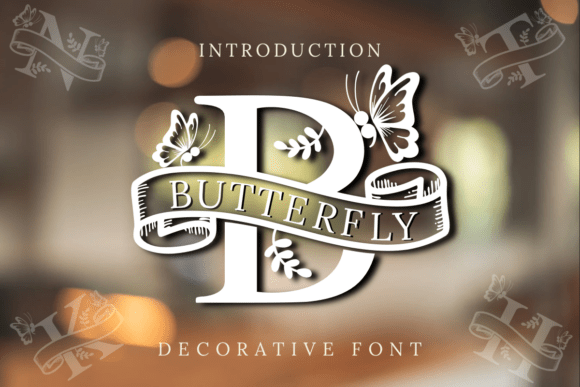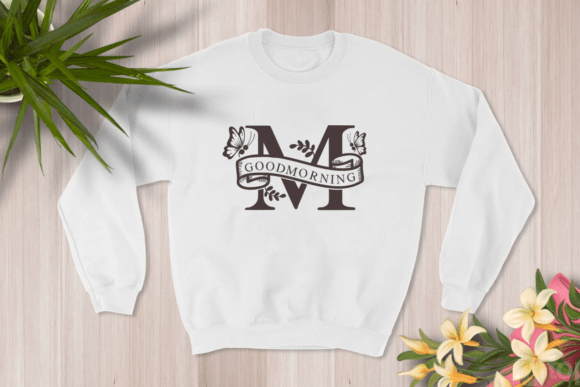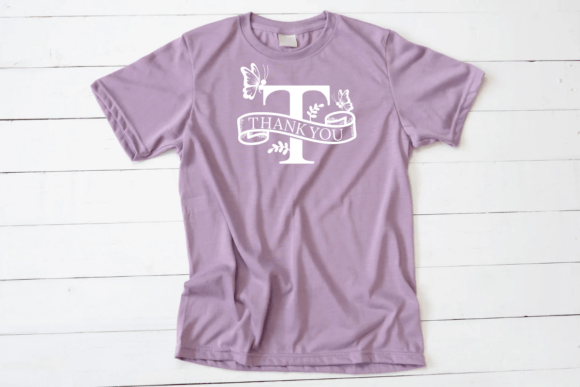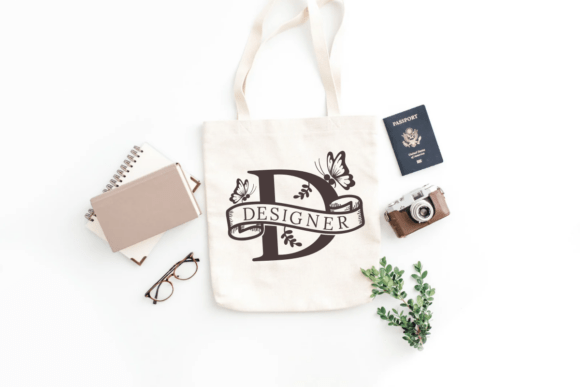
Butterfly Monogram Font: Elegant & Cute Font for Cricut Crafts
About the Butterfly Monogram Font
Explore the possibilities with Butterfly Monogram Font, a font that offers both beauty and functionality. Butterfly monogram is a decorative font. You can use it for taking notes, writing a diary, or making greeting cards. However, you can still use it for other designs, such as banners, content, mugs, cards, shirts, stationery, social media posts, and more!
Butterfly Monogram’s decorative style is ideal for headlines, logos, short text blocks on packaging or invitations, and social media graphics where visual impact is key. Its ornate nature, however, makes it unsuitable for body text or lengthy paragraphs; readability suffers at smaller sizes. Avoid using it in user interfaces (UI) or situations requiring high legibility.
The font possesses a playful, yet elegant personality. It would be a strong choice for brands focused on beauty, fashion, or artisanal goods. Pair it with a clean sans-serif like Montserrat for contrast and readability in supporting text or a classic serif like Garamond for a more traditional, sophisticated feel. A script font could also work well for a cohesive, handwritten feel, depending on the desired aesthetic.
Consider pairing it with a geometric sans-serif for a modern, balanced look, or a more neutral font like Lato to emphasize Butterfly Monogram’s decorative qualities without overwhelming the design.
Butterfly Monogram Font Usage Examples
Butterfly Monogram Font Example